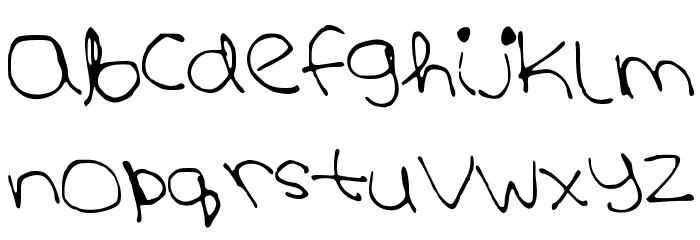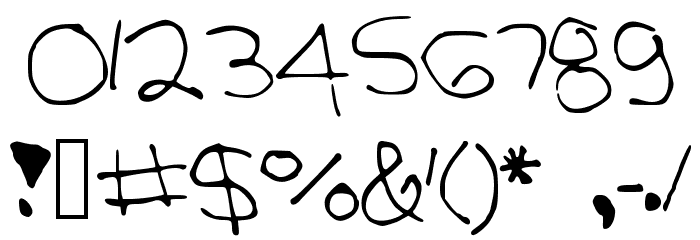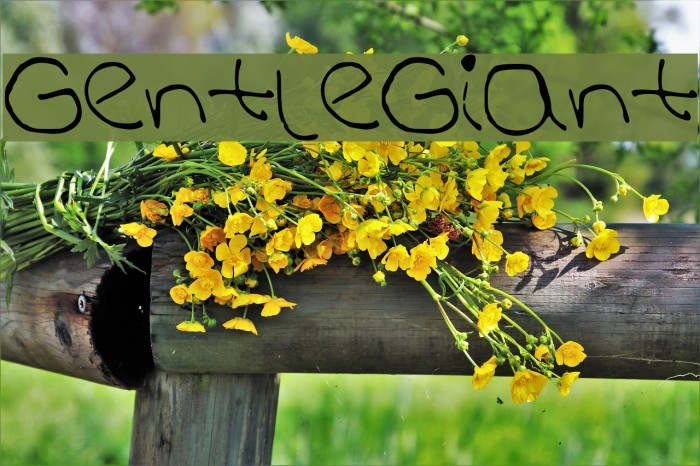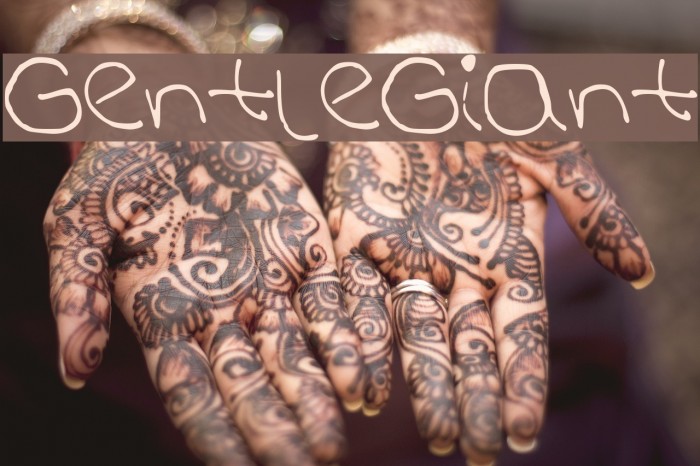
GentleGiant Font
This font exhibits a playful and informal handwritten style, characterized by its irregular and organic letterforms. The strokes are uneven, giving it a casual and relaxed appearance. Each character has a unique, slightly quirky shape, contributing to its overall charm. The font maintains a consistent baseline, but the heights and widths of the letters vary, adding to its whimsical nature. The numbers and special characters follow the same playful design, ensuring a cohesive look across all elements. This font is ideal for projects that require a personal touch or a fun, approachable aesthetic.
A playful, informal handwritten font with quirky, organic letterforms.
- Proposed Projects: Ideal for children's books, greeting cards, casual invitations, and playful branding projects.
- Overall Style: Casual, Playful
- Use Case: Headlines, Informal text, Creative projects